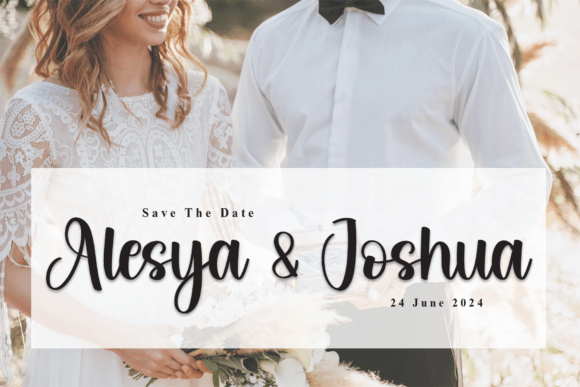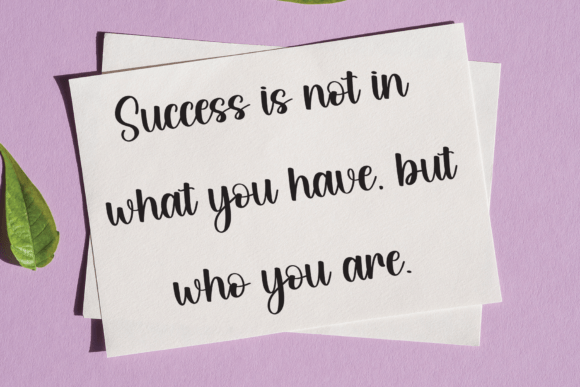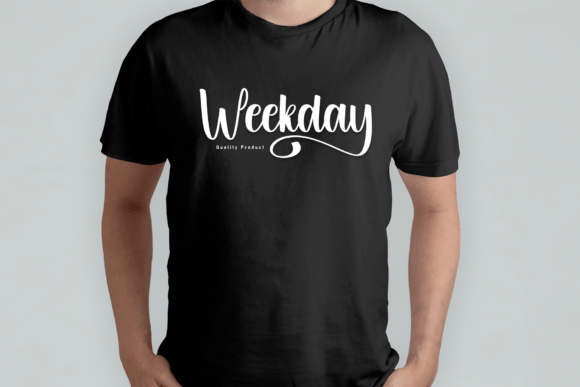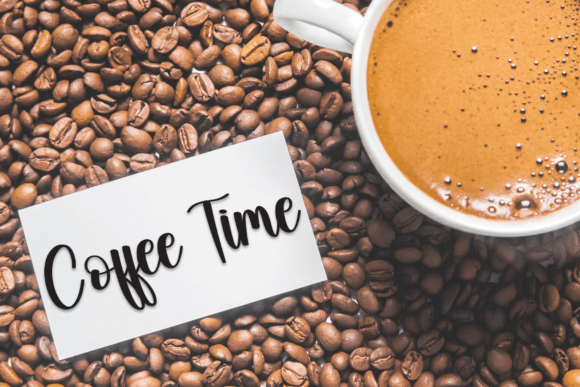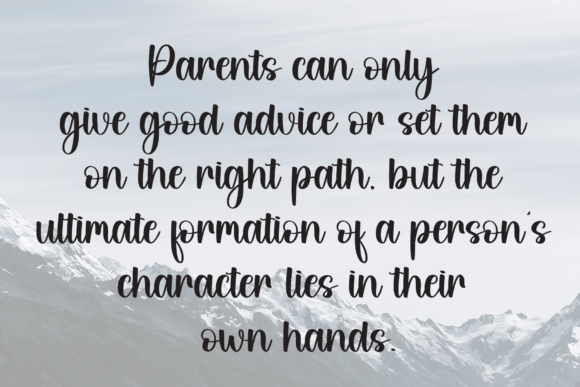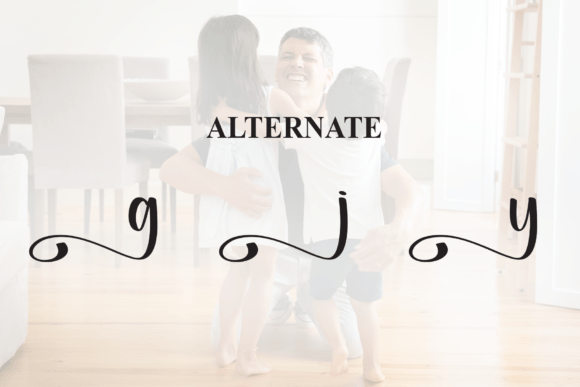
The Elegance of Daddy Monday Font: A Designer’s Delight
I’ll never forget the time I was working on a wedding invitation project, and my client asked for a font that exuded elegance and sophistication. I scoured the internet, tried out countless fonts, but nothing seemed quite right. That was until I stumbled upon Daddy Monday Font. It was love at first sight! 💕
- ✨ Elegant and stylish: Daddy Monday Font is perfect for designs that require a touch of sophistication.
- ✅ Highly versatile: Use it for wedding invitations, thank you cards, quotes, greeting cards, logos, business cards, and more.
- 💫 Beautifully crafted: The font’s intricate details and flowing lines make it a joy to work with.
- ⚠️ Limited use in body text: Due to its elegant and cursive nature, Daddy Monday Font might not be the best choice for lengthy body text.
- 🤔 May require adjustments for certain languages: Some languages may require additional setup or glyphs to work seamlessly with the font.
- Experiment with OpenType features, such as ligatures and stylistic alternates, to add more flair to your design.
- Explore the various glyphs, ligatures, and stylistic alternates to enhance your design.
The Story Behind Daddy Monday Font
Daddy Monday Font was created with the intention of bringing a touch of elegance and sophistication to designs. Its creator drew inspiration from classic calligraphy and modern script fonts, resulting in a unique and beautiful typeface.
| Font Name | Daddy Monday Font |
Q: What type of designs is Daddy Monday Font best suited for?
A: Daddy Monday Font is perfect for designs that require a touch of elegance and sophistication, such as wedding invitations, thank you cards, and greeting cards.
Q: Does Daddy Monday Font support OpenType features?
A: Yes, Daddy Monday Font supports OpenType features, including ligatures and stylistic alternates.